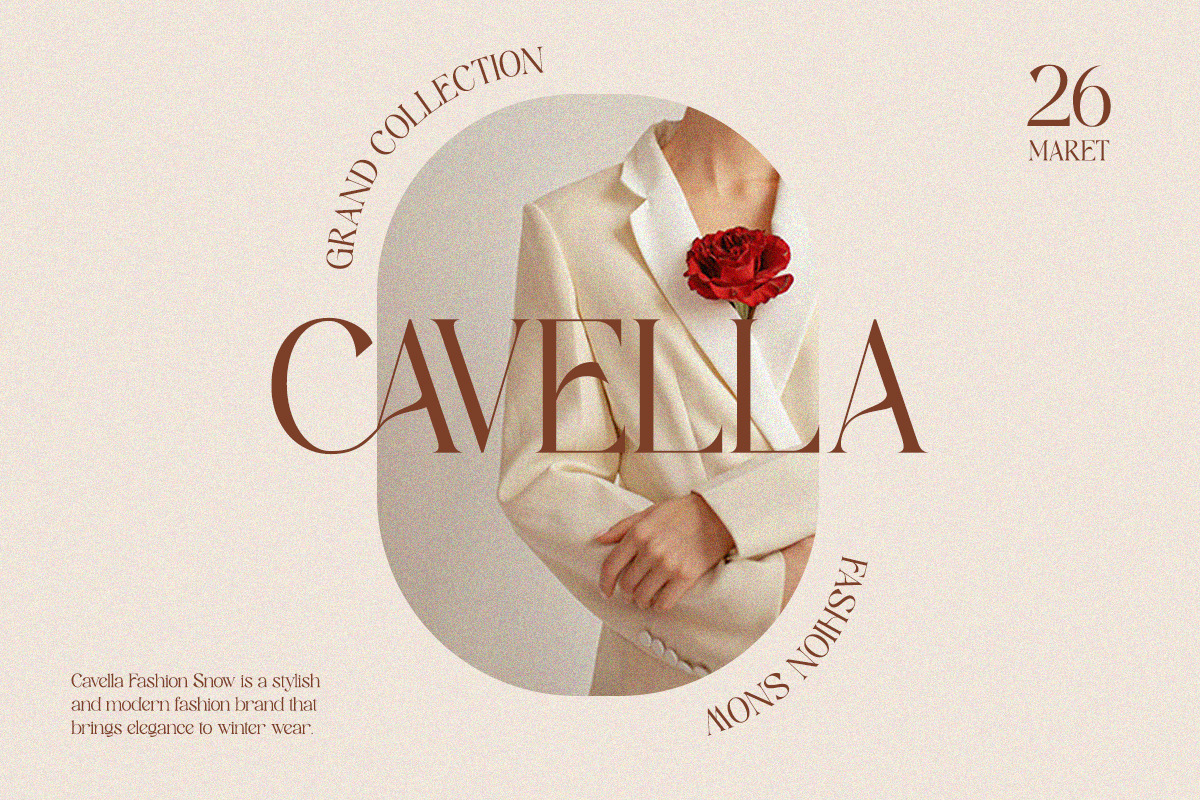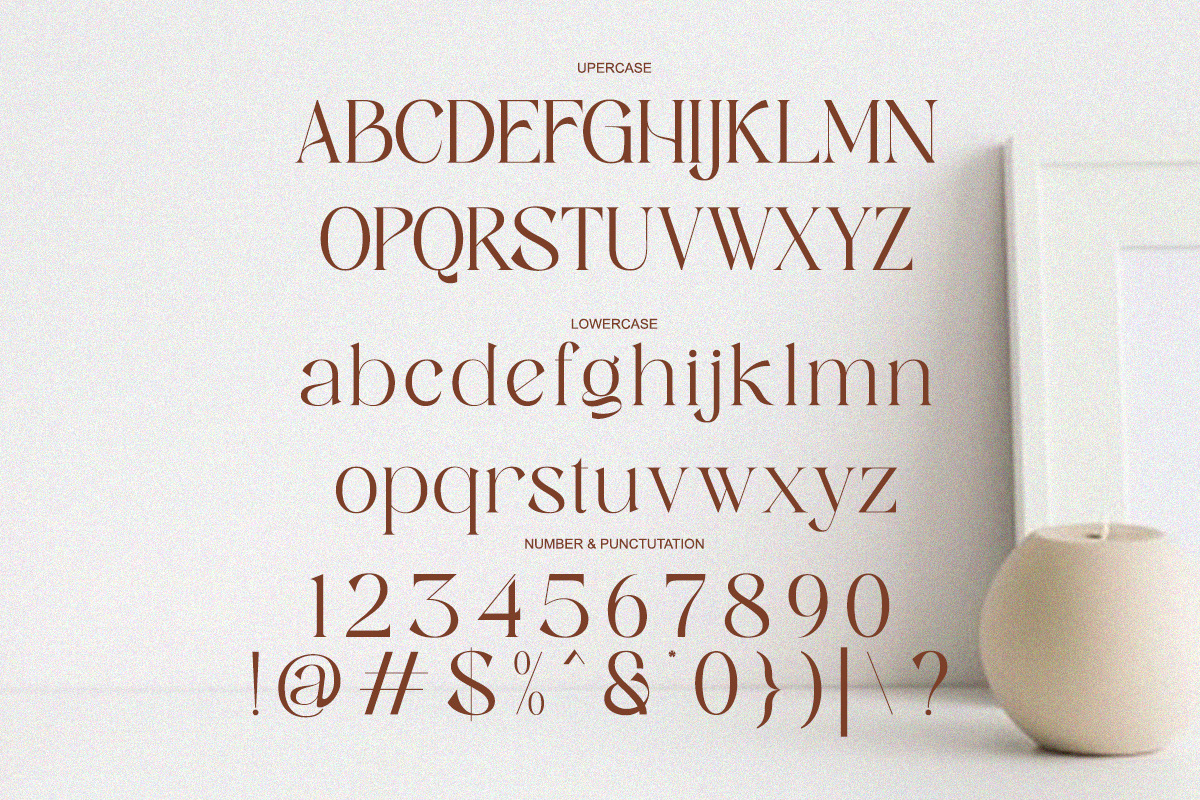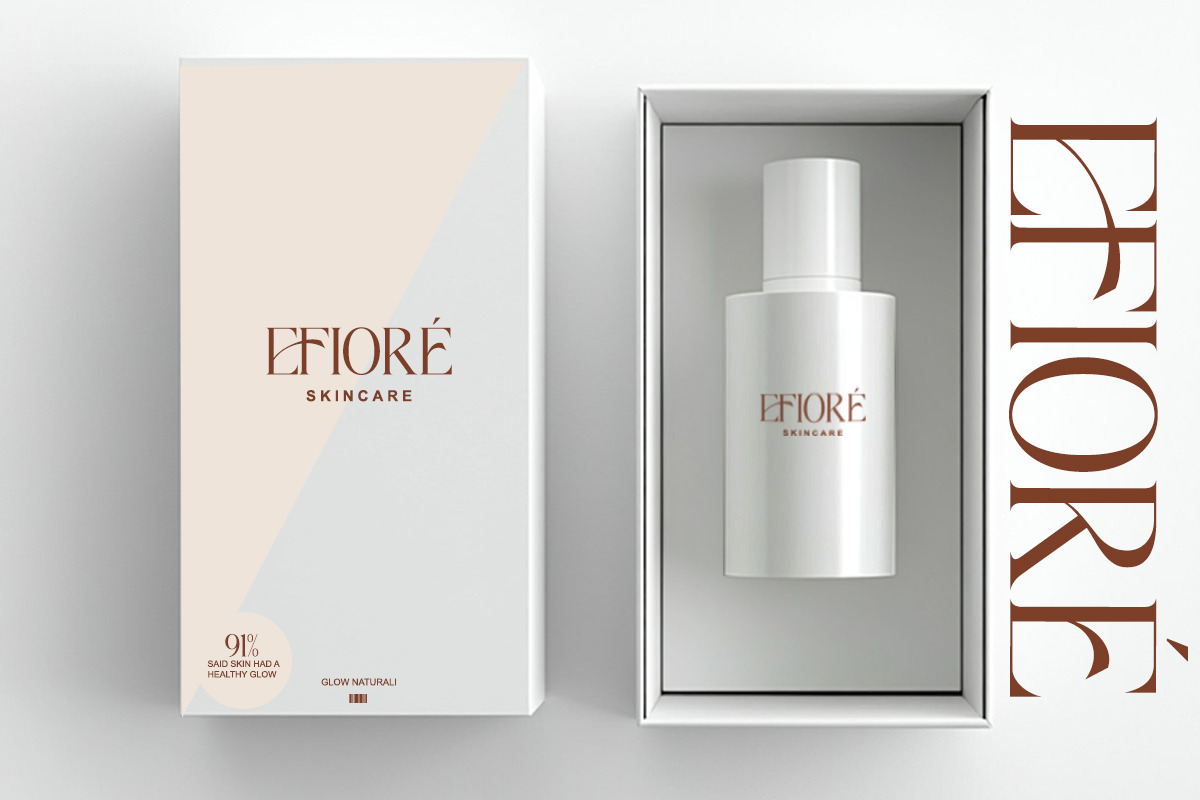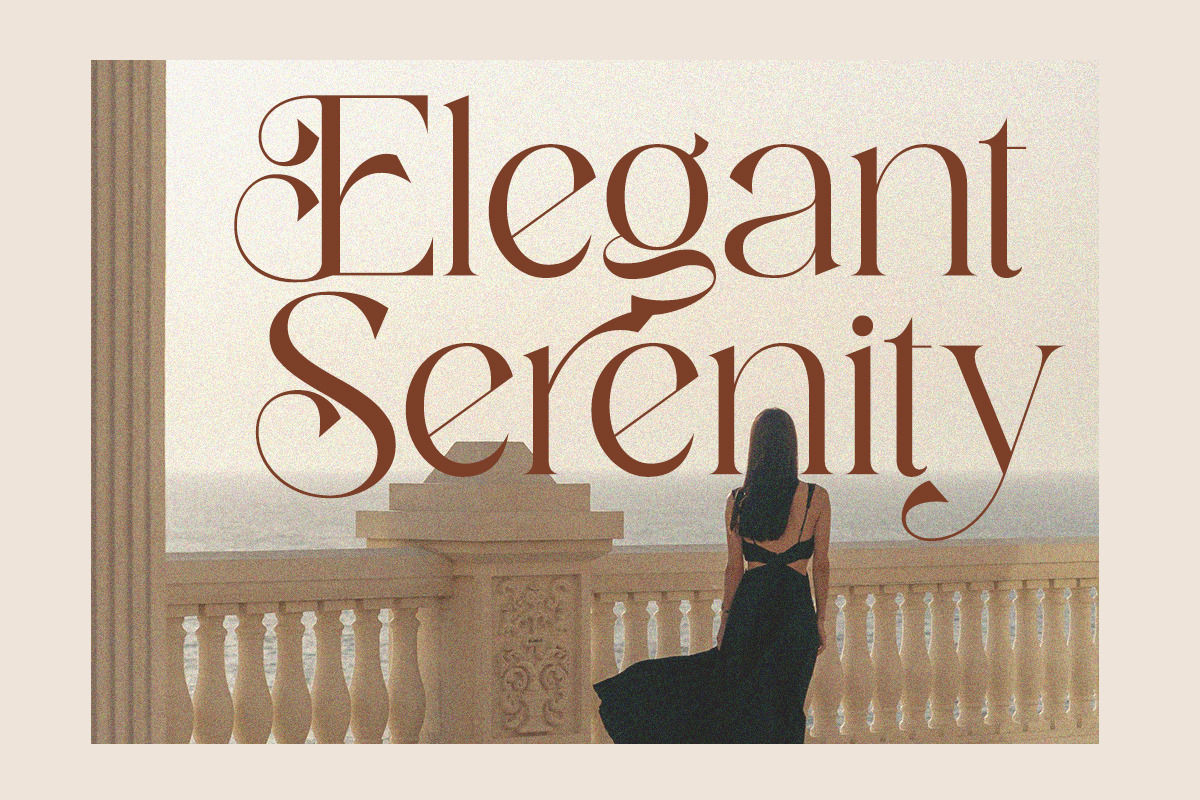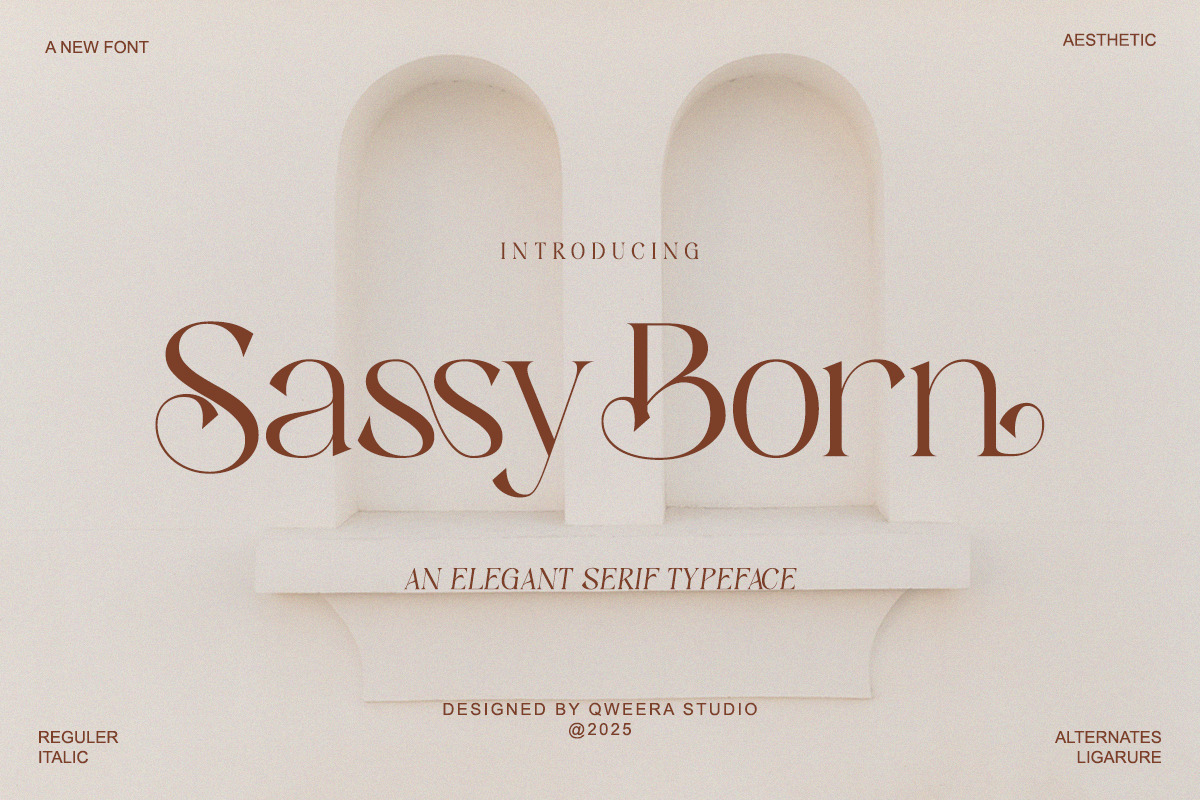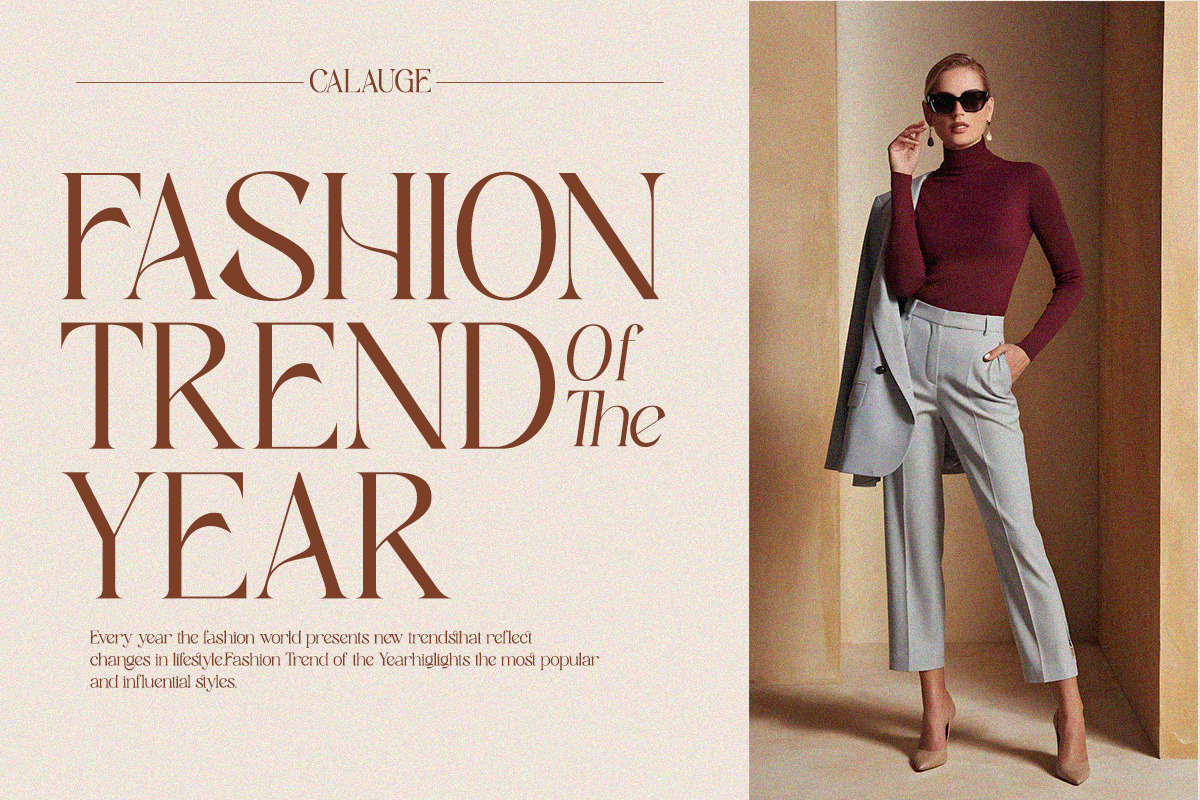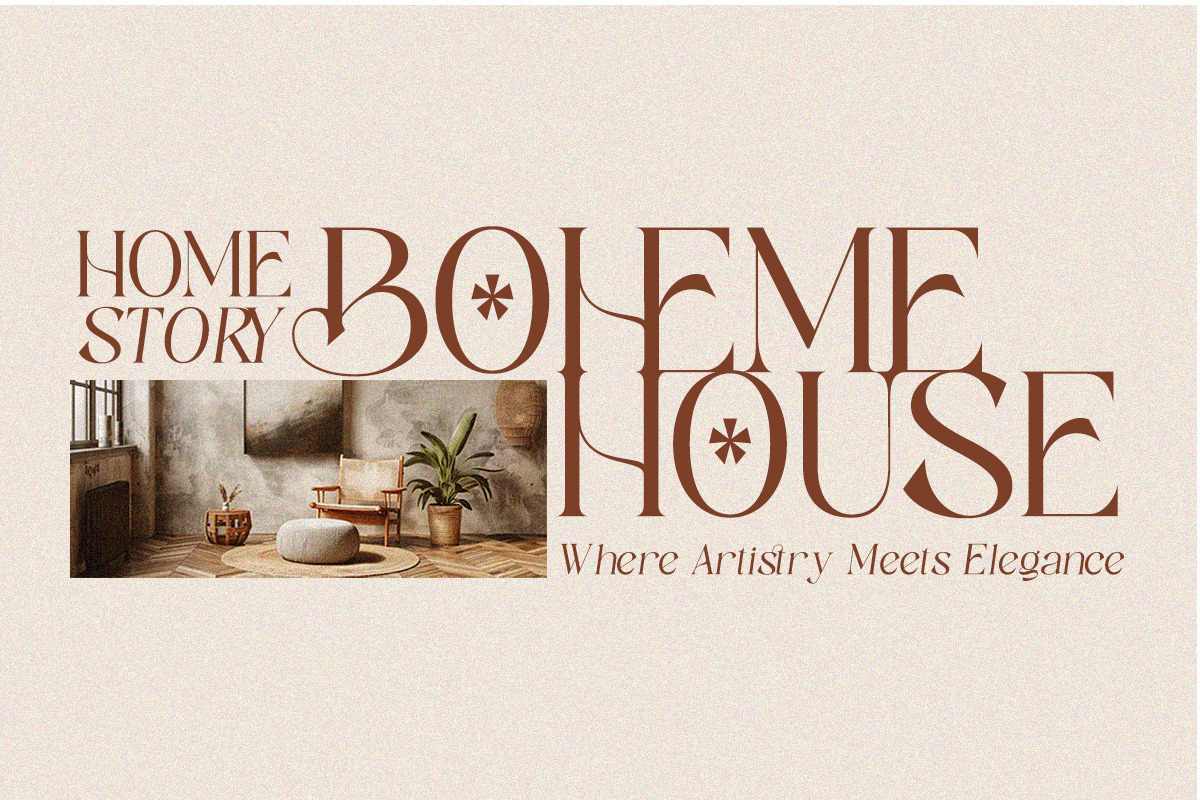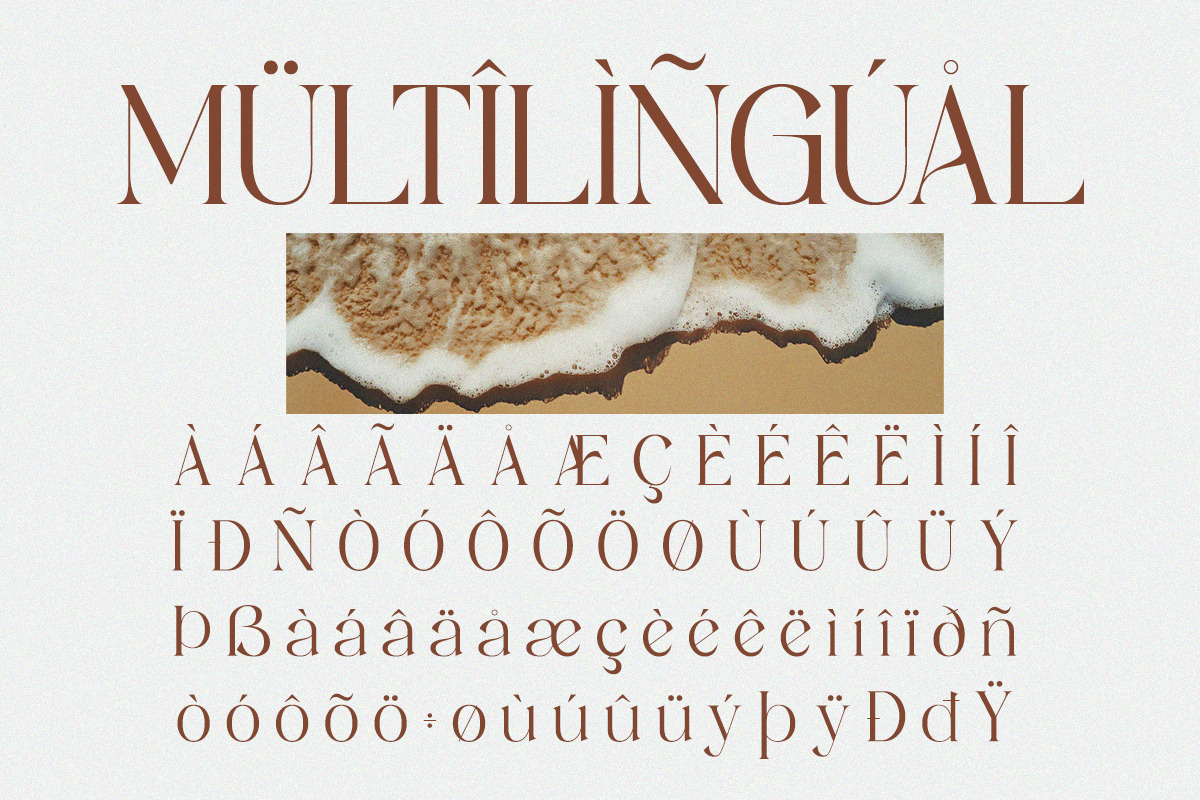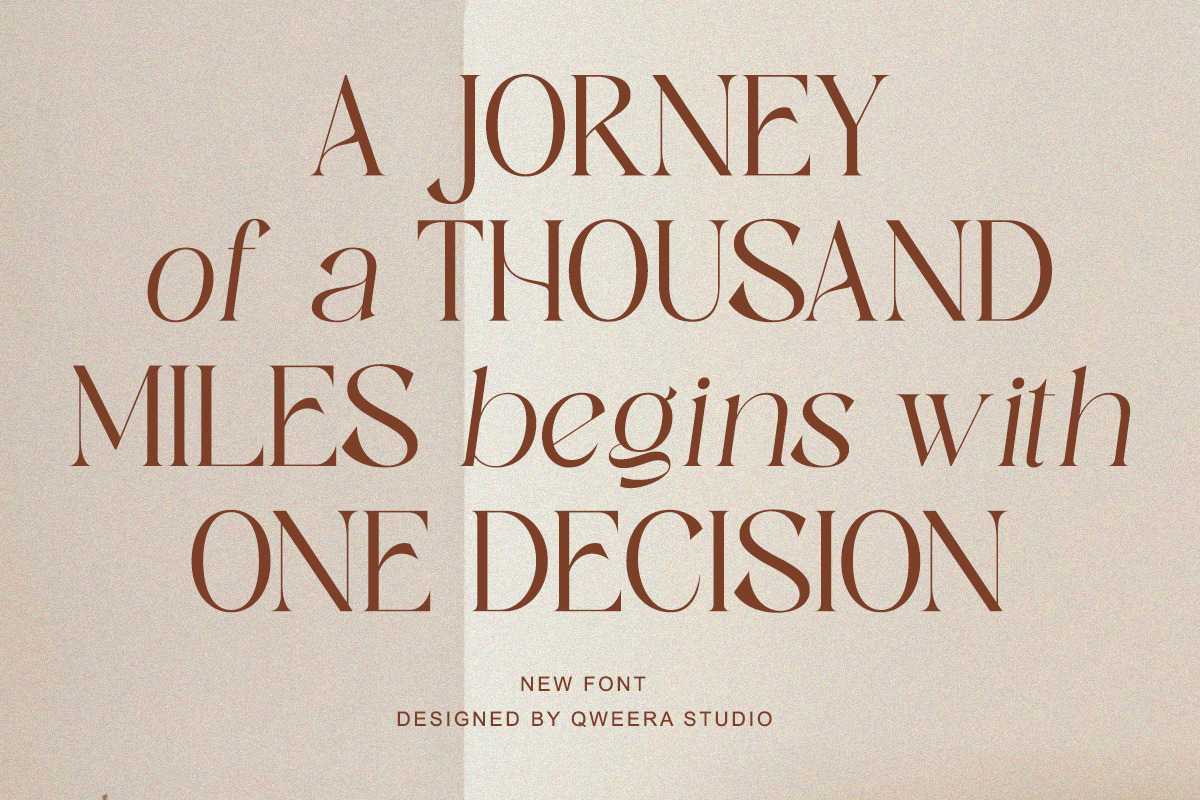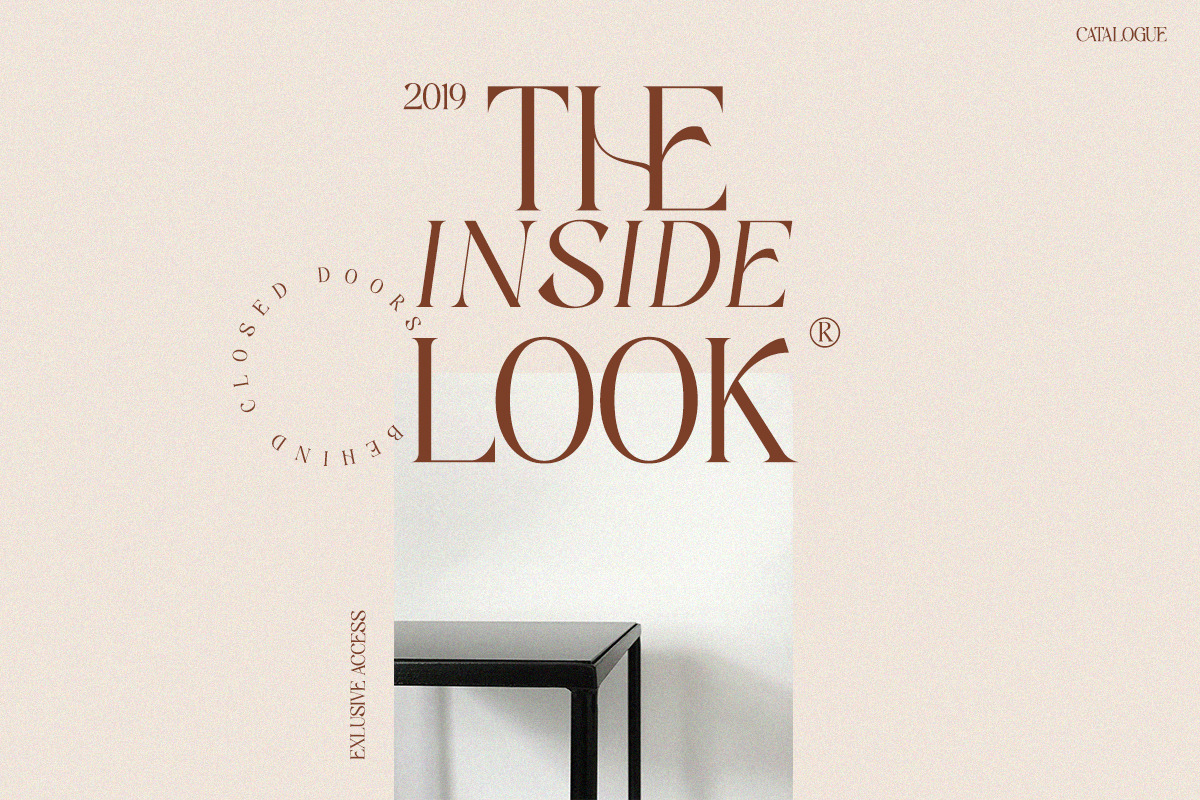
Sassy Born - Modern Elegant Font
Sassy Born - Modern Elegant Luxury Serif Font for Premium Branding
Sassy Born is a captivating serif typeface that redefines luxury with its bold elegance and contemporary flair. Featuring both regular and italic versions with exquisite alternates and ligatures, this font is expertly crafted for high-impact branding, sophisticated logos, premium packaging, and editorial designs that demand attention.
Where Bold Elegance Meets Modern Sophistication
With its confident serif structure and graceful italic counterpart, Sassy Born delivers unparalleled versatility for brands seeking both prestige and personality. The carefully designed alternates and ligatures empower you to create distinctive typographic compositions with perfect balance and style.
Premium Features Include:
- Luxury Serif Design – Bold yet refined letterforms for maximum impact
- Dual Style Versions – Regular & italic for dynamic visual hierarchy
- Exclusive Alternates – 30+ special glyphs for unique branding
- Artistic Ligatures – Seamless letter connections for flawless typography
- Universal Application – From luxury packaging to billboard designs
- Extended Language Support – Comprehensive Latin character set
Make a Statement with Sassy Born's Confident Elegance Ideal for:
- Luxury fashion branding
- High-end cosmetic packaging
- Premium restaurant identities
- Magazine headline typography
- Elegant event promotions